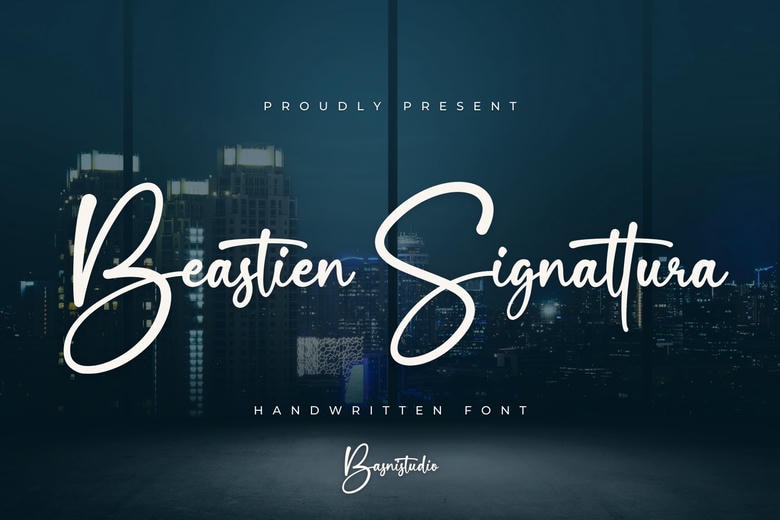
Beastien Signattura Font
Beastien Signattura is a contemporary handwritten typeface, which exudes elegance and confidence with its smooth flowing letterforms and contrasts between the strokes. The absence of extraneous aggressive lines, sleek, smooth edges and natural handwritten feel is ideal in terms of high-end branding, signature logos, wedding invitations, social media design, and product packaging.
Beastien Signattura with its modern but classic design fits perfectly with bold and delicate layouts and brings an element of sophistication and personality to any project a person creates. This font provides flexibility and power in all applications whether you are creating designs of luxurious brands or just personal casual designs.
Beastien Signattura Handwritten Font